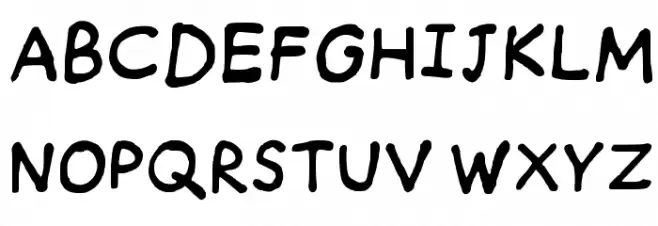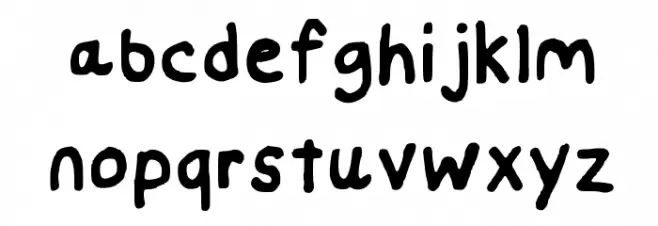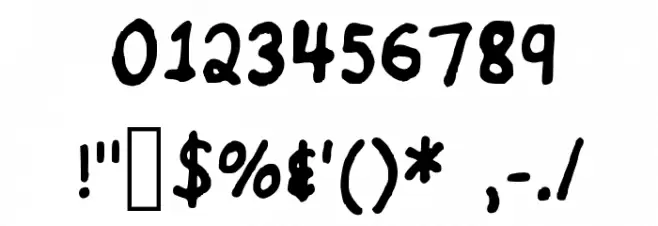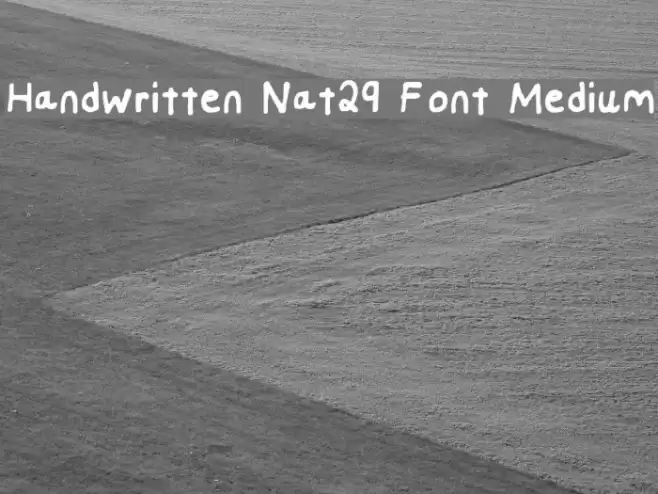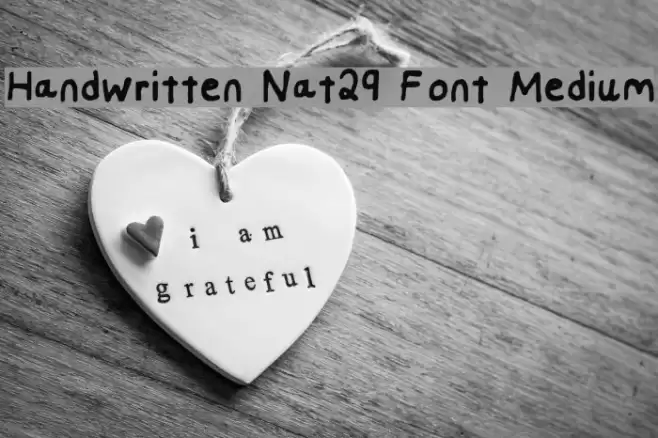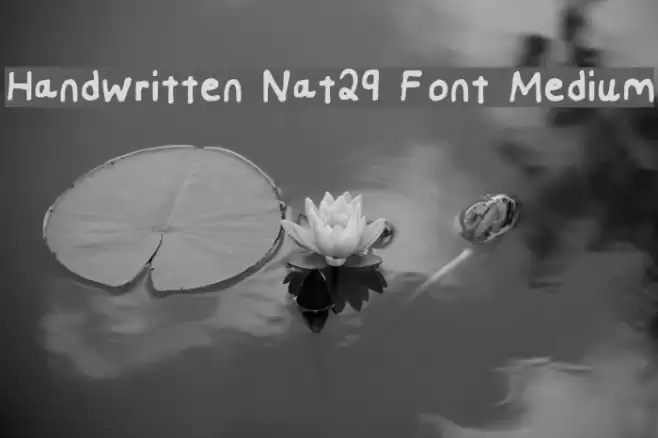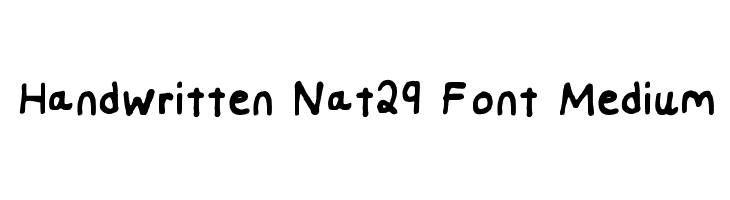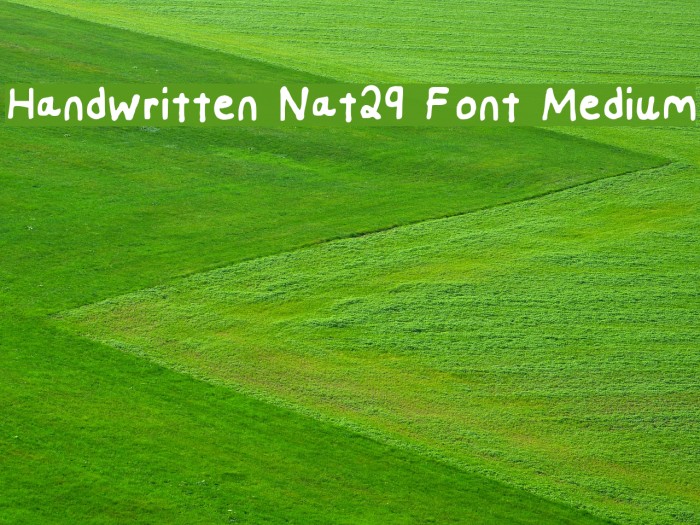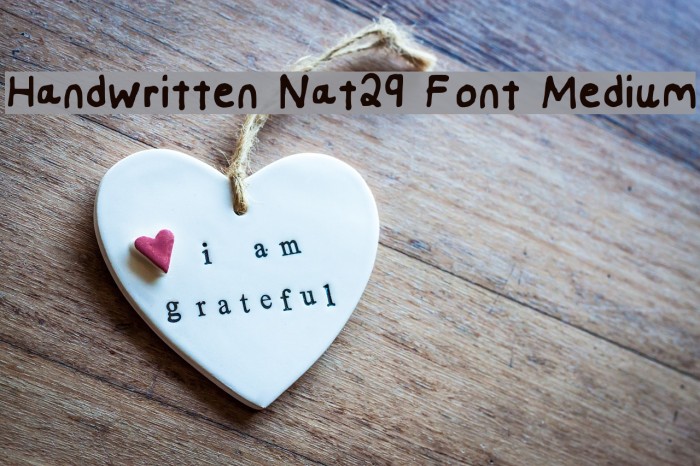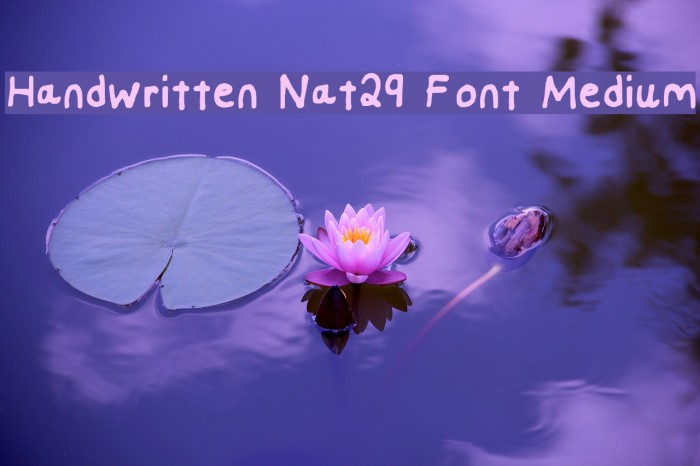
Handwritten Nat29 Font Medium
This font features a playful and casual handwritten style, characterized by its rounded and slightly irregular letterforms. The strokes are consistent in width, giving it a uniform appearance despite its informal nature. The uppercase and lowercase letters maintain a friendly and approachable look, making it suitable for projects that require a personal touch. The numerals and special characters are crafted with the same whimsical style, ensuring cohesion across all text elements. This font's charm lies in its simplicity and the subtle variations that mimic natural handwriting.
A playful, handwritten font with rounded, uniform strokes and a casual style.
- Proposed Projects: Ideal for greeting cards, children's books, personal blogs, and informal branding.
- Overall Style: Casual
- Use Case: Headlines, Informal text, Personal projects